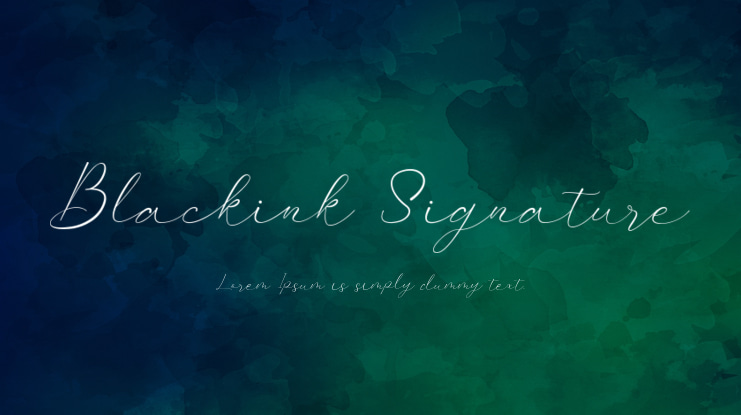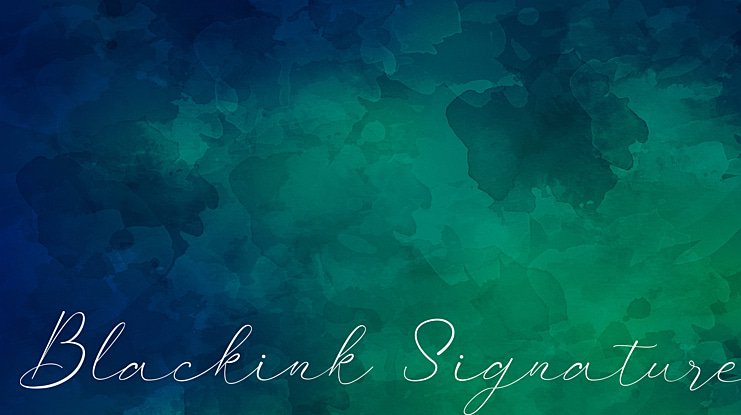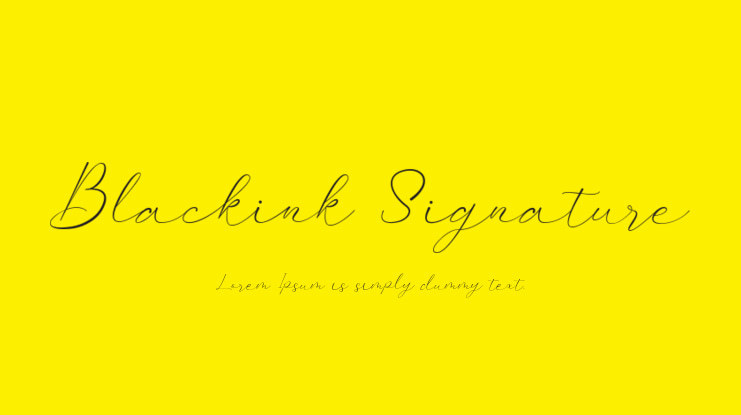
Blackink Signature Font
This is a elegant calligraphy typeface that is suitable for branding, wedding invitations, and other romantic projects. Its distinct and well balanced letters make this font a masterpiece. This font is PUA encoded which means you can access all of the glyphs and swashes with ease!